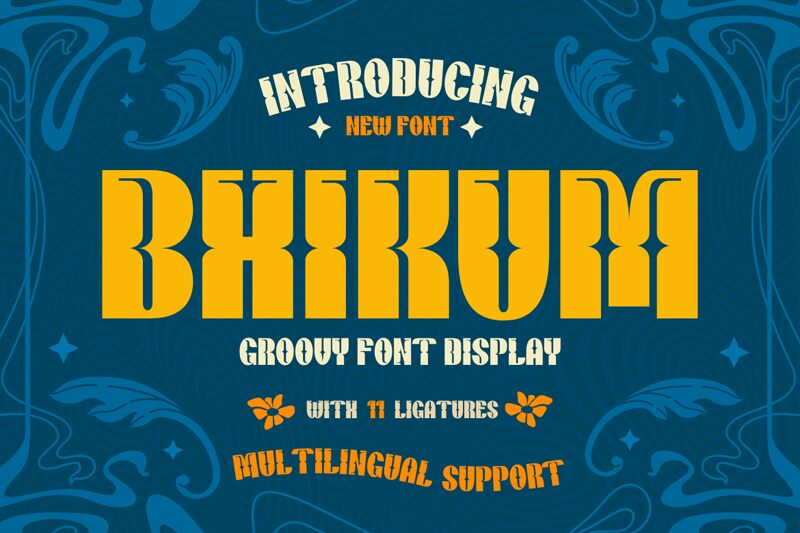
The Bhikum font, designed by Twinletter, exudes a bold, groovy, and condensed aesthetic that commands attention. This display typeface boasts striking letterforms with distinctive curves and angular elements, creating an eye-catching visual narrative. The font's bold weight and condensed width lend it a dynamic presence, making it an engaging choice for header text, branding, and attention-grabbing design elements.
Bhikum's versatility shines through in its ability to seamlessly integrate into a variety of design contexts. Its bold, distinctive style makes it an ideal choice for creating impactful headers, logos, and display text in areas such as editorial design, advertising, and packaging. The font's condensed width also allows for efficient use of limited space, making it a practical selection for various print and digital applications.
Bhikum